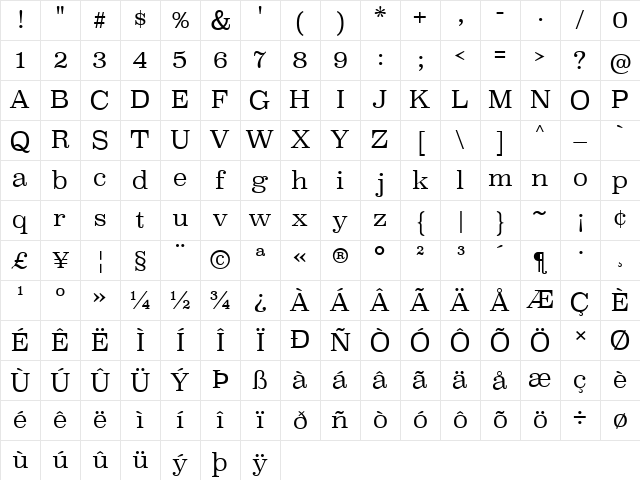
Superclarendon Light
Design Context for Superclarendon
Superclarendon features prominent, blocky serifs that give it a confident, grounded presence - equally at home in editorial settings and bold branding work. Its slender proportions lend an understated elegance to any composition.
Pro Tip: Use Superclarendon for headlines and subheadings where its slab serifs can make an impression. It also holds up well in mid-size body copy thanks to its sturdy construction.